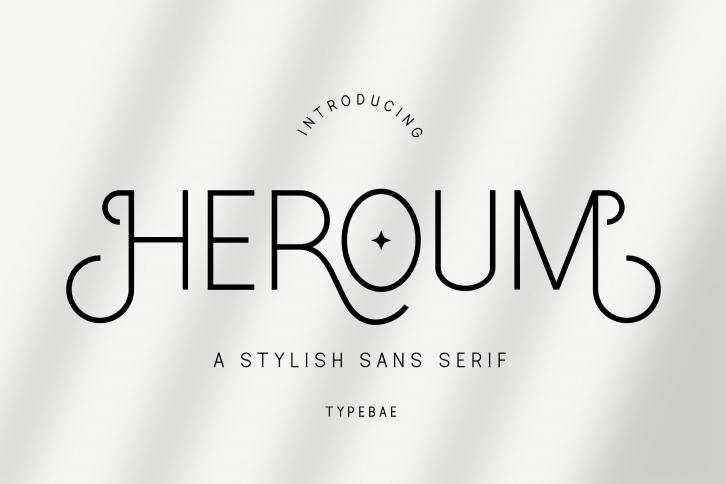
Introducing Heroum Stylish Sans Serif Typeface
Heroum is stylish and beautiful sans serif font. It will look perfect in photography designs, watermarks, social media posts, advertisements, logos, branding, and various other projects.
To use stylistic Alternates and ligatures, there is no need to use software that supports opentype, because we have made them separately so it is very easy to use.
• Uppercase & Lowercase
• Numbers & Punctuation
• Ligature & Alternate